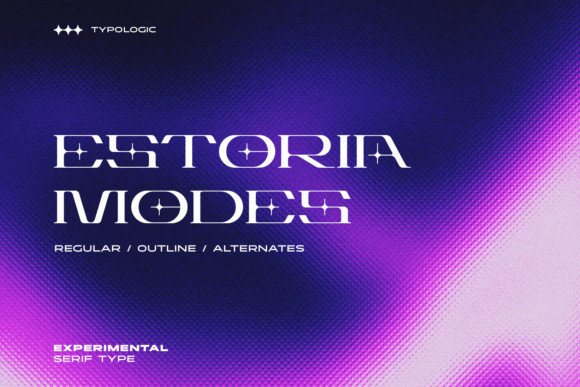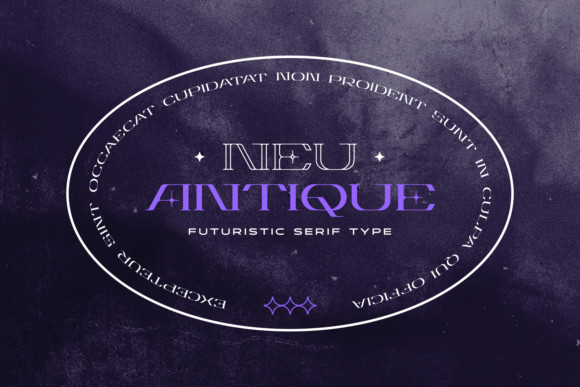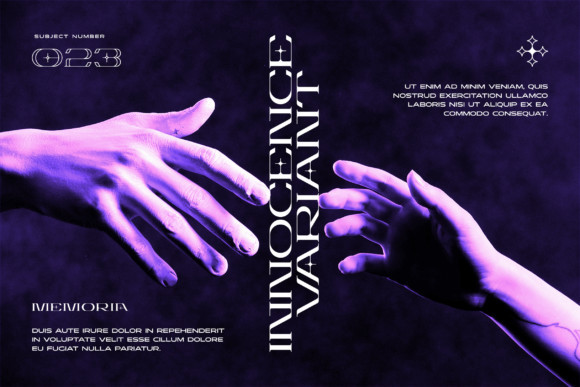
Estoria Font
Estoria is a cool and futuristic display font. This font is PUA encoded which means you can access all of the amazing glyphs and ligatures with ease!